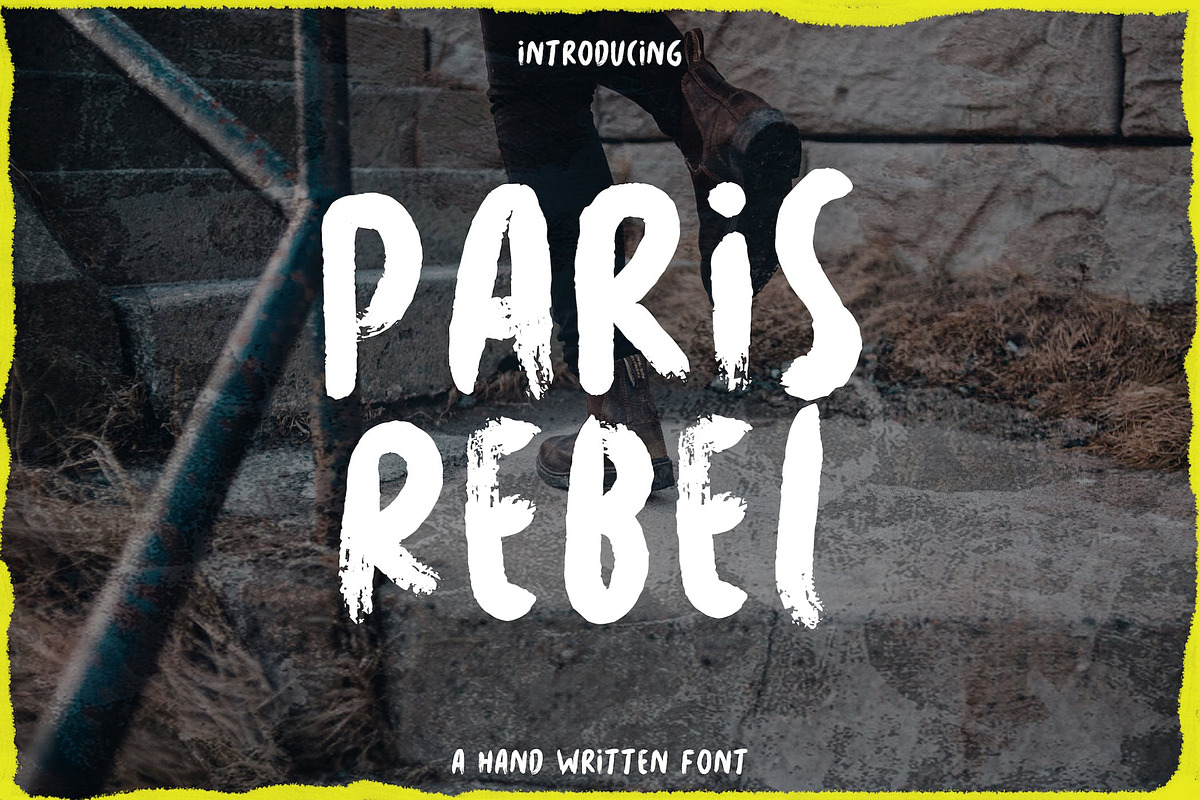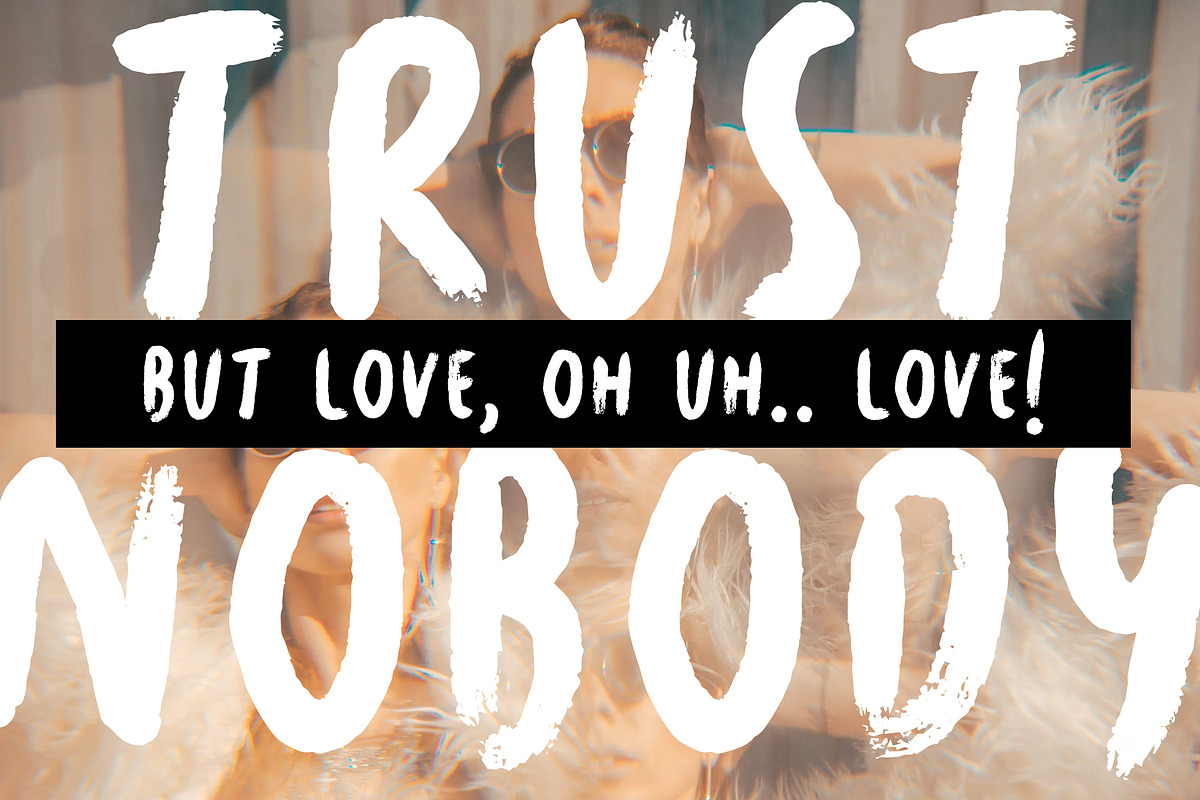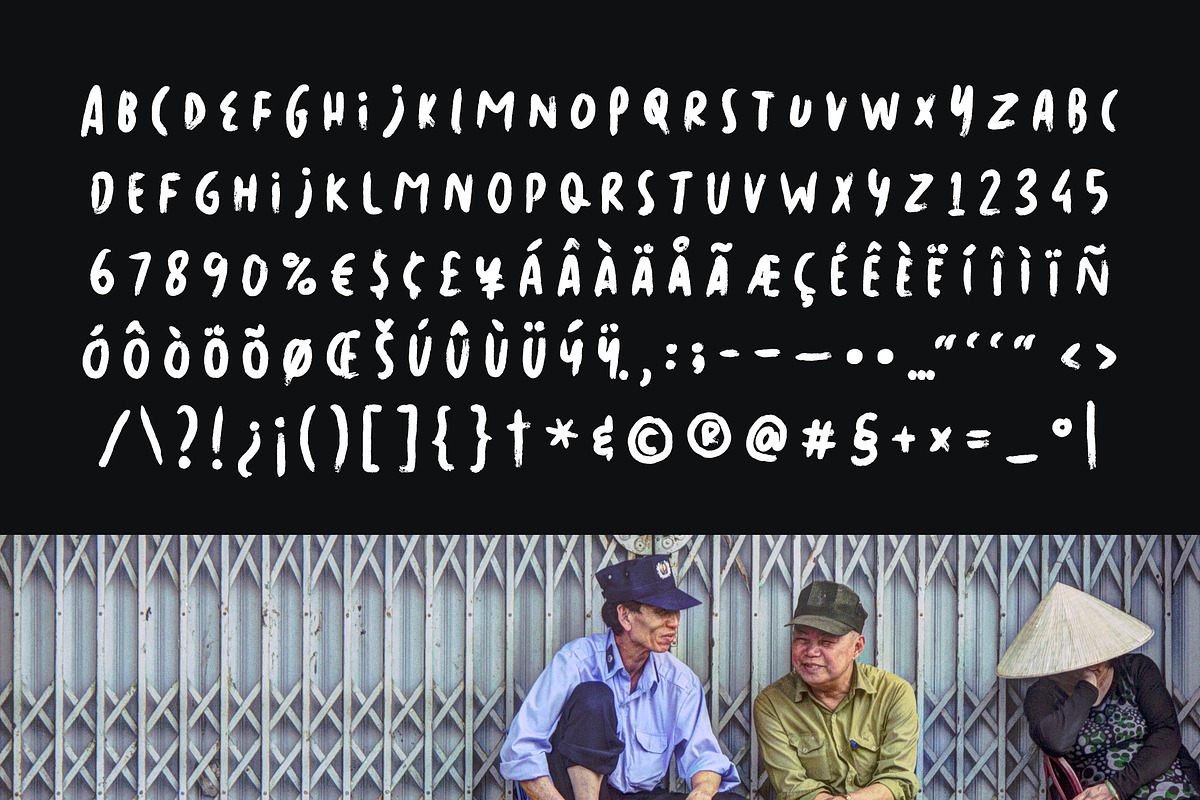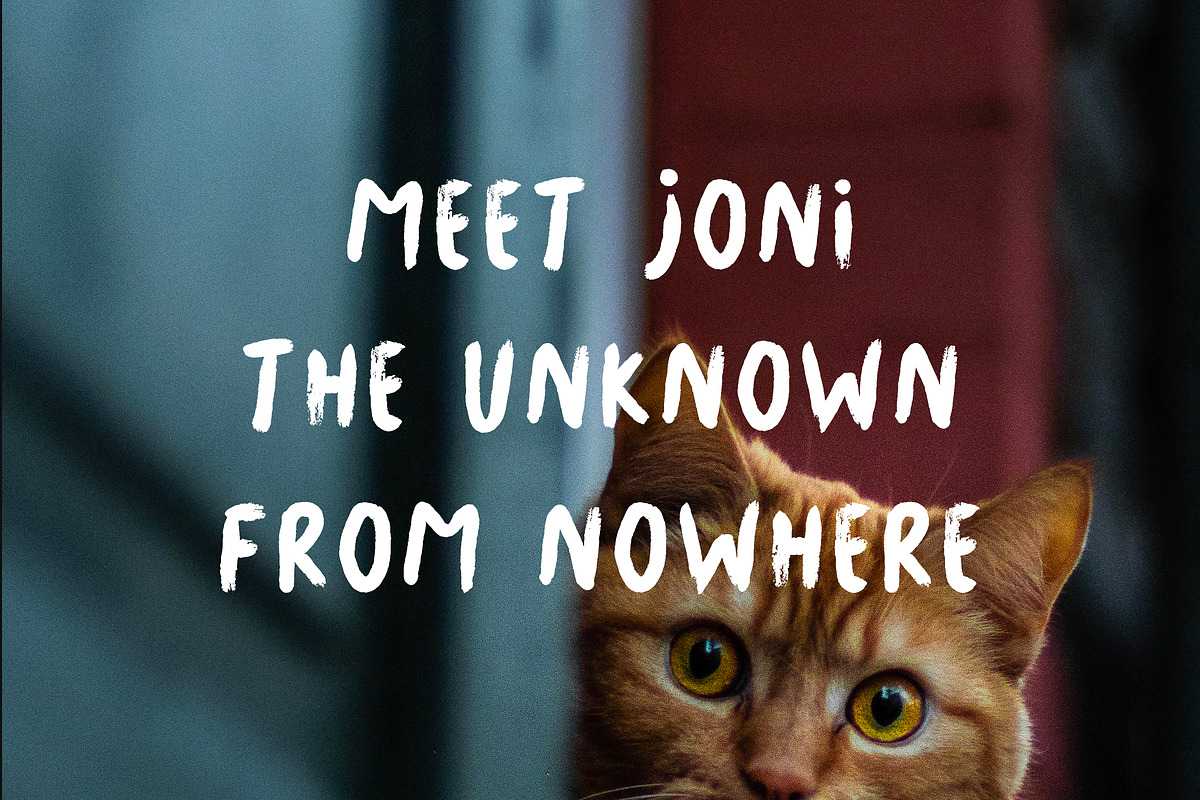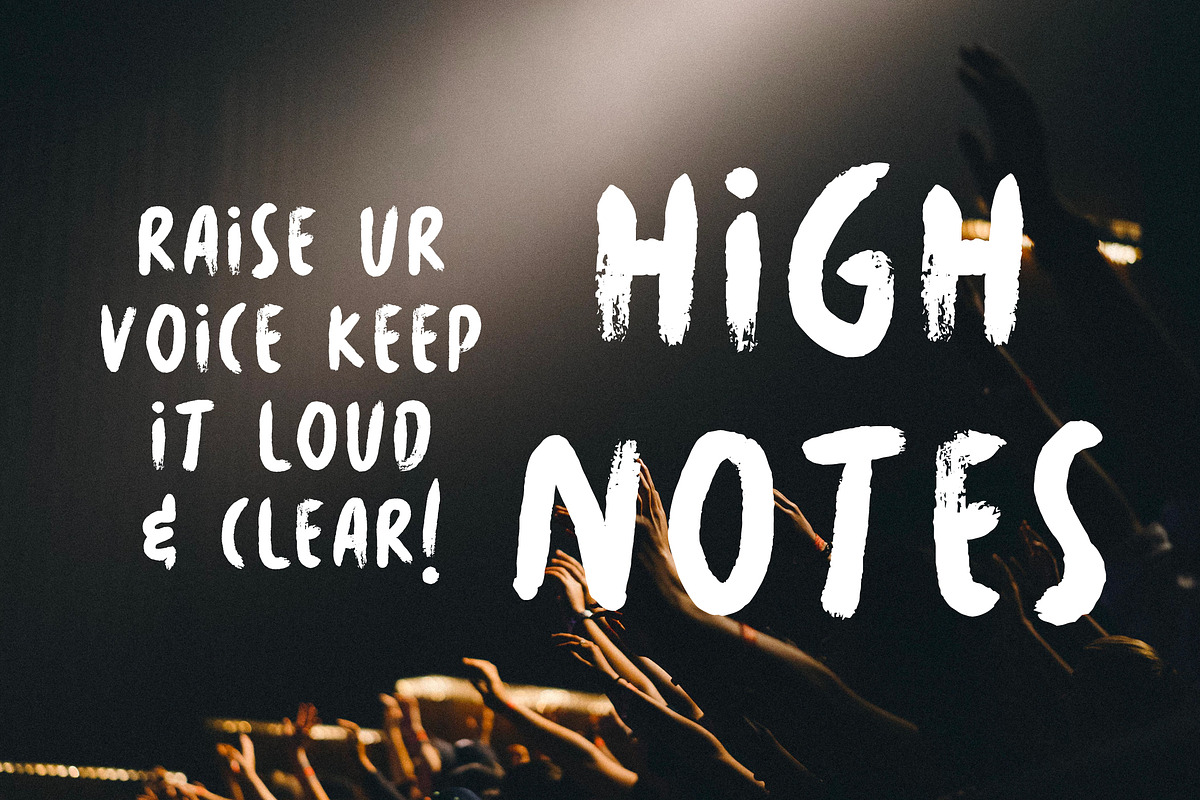
Paris Rebel - A Handwritten Font
Introducing PARIS REBEL, a unique display font from Strokes.ink. This handy sans serif includes a full character, numbers, punctuation & also alternate version. Perfect for big displays, titles, posters, marketing & advertising.
- Alternate glyphs for each lowercase letter
- Numbers & All major punctuation included